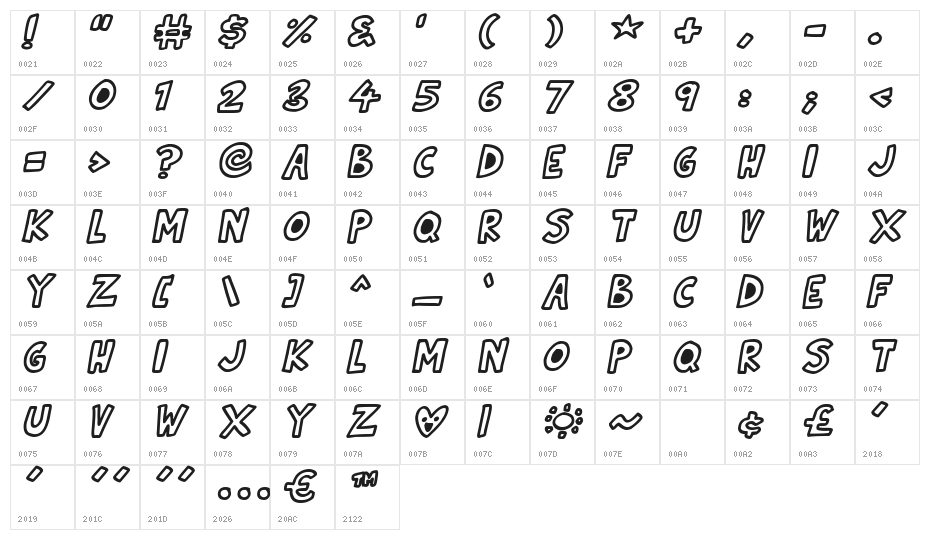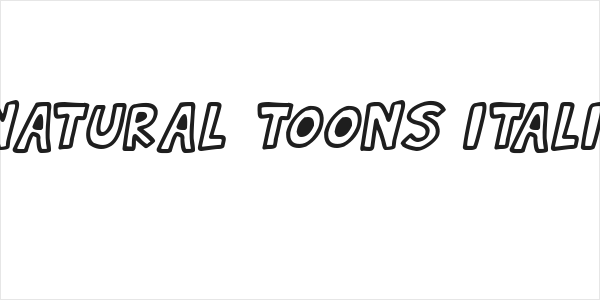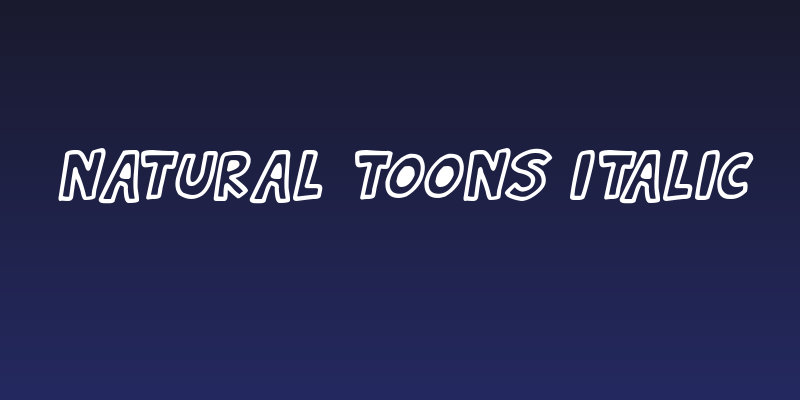
Natural Toons Italic Font
Natural Toons Italic Description
This playful and dynamic font features bold, rounded characters with a cartoonish flair. The letters are outlined, giving them a three-dimensional appearance that adds depth and interest. The italic slant enhances the sense of movement and energy, making it ideal for designs that aim to capture attention and convey a sense of fun. The font includes both uppercase and lowercase letters, numerals, and a variety of special characters, ensuring versatility in its application. Its thick strokes and outlined style make it highly legible, even at smaller sizes, while the whimsical design elements add a touch of creativity and humor.
| Overall Style | Playful, Cartoonish, Fun |
| Proposed Projects | Ideal for comic books, children's books, playful branding, and eye-catching posters. |